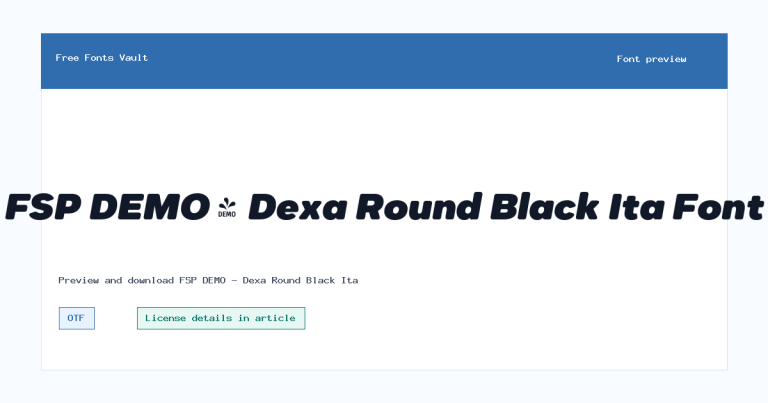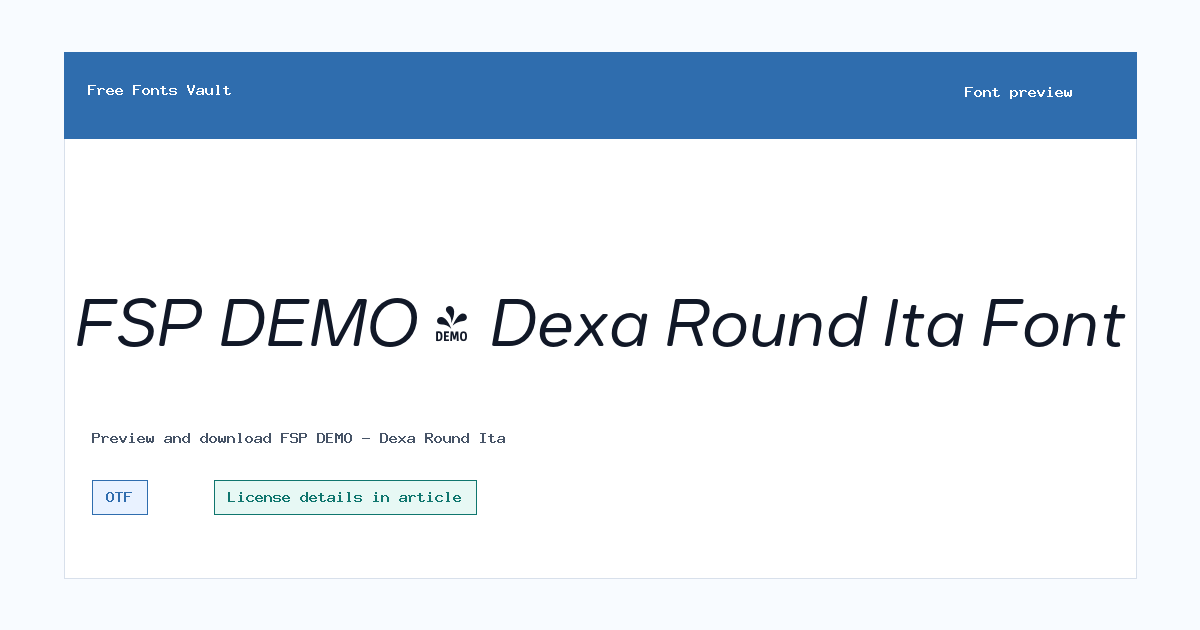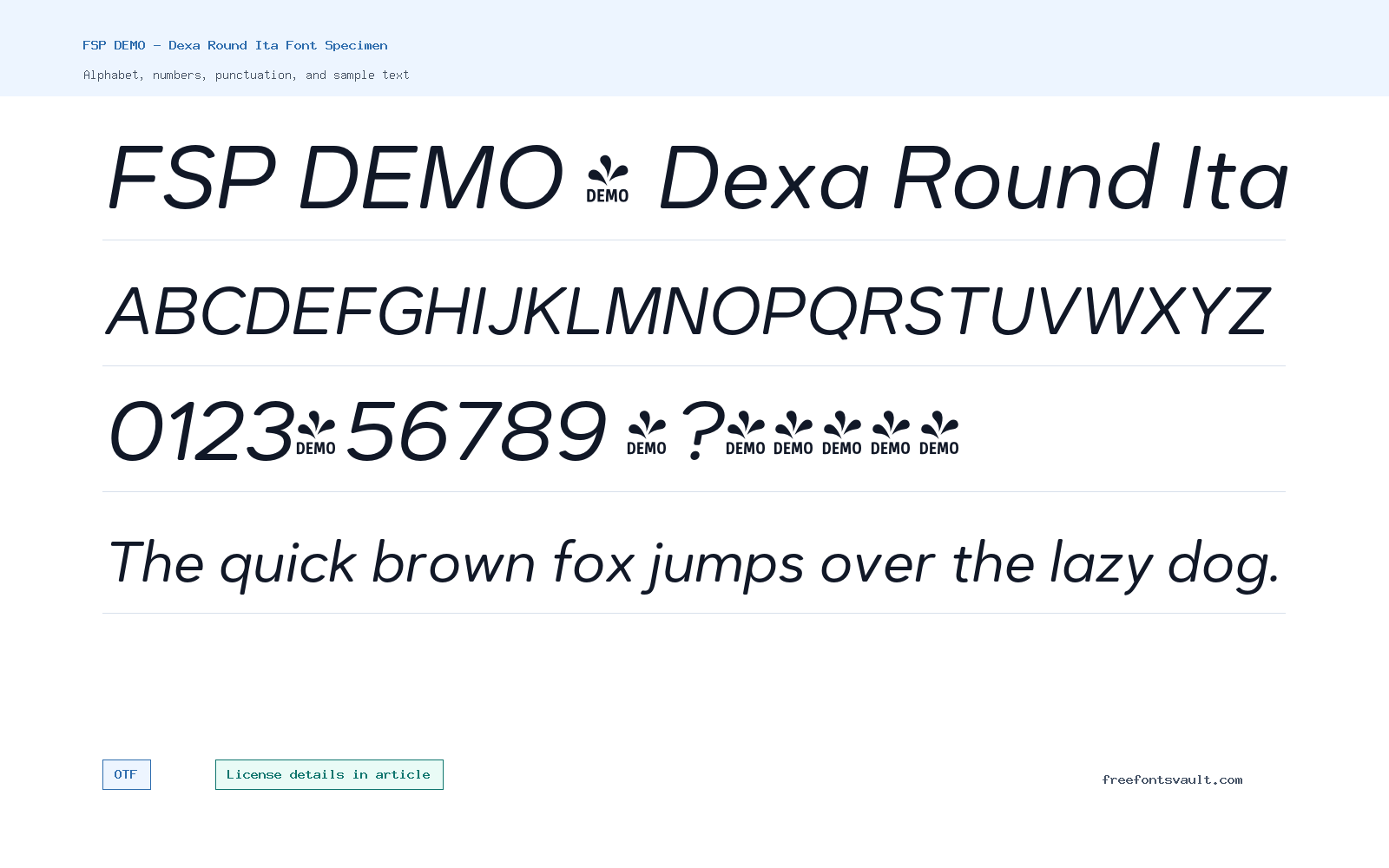
FSP DEMO - Dexa Round Ita
- Designer Ceyhun Birinci
- Foundry Artegra
FSP DEMO – Dexa Round Ita font.
Dexa Round Italic is a rounded italic font family style credited to Ceyhun Birinci and Artegra. The download includes OTF files for regular italic and bold italic weights, giving you two useful options for slanted display text.
About Dexa Round Italic
Dexa Round Italic has the soft, rounded feel suggested by its name, with an italic angle that can make short words and headings feel more active. The available files cover a 400 regular italic style and a 700 bold italic style, so you can test a lighter slanted look against a stronger headline weight in the preview tool.
Use this font where you need friendly emphasis rather than long-form reading. It can work for compact titles, badges, packaging mockups, social graphics, quotes, and short logo-style text. Because both available styles are italic, check readability carefully in smaller sizes and avoid using it for long paragraphs unless the preview still feels comfortable.
For the cleanest comparison, type the same phrase in the regular italic and bold italic styles. The regular style can handle softer emphasis, while the bold style is better when the words must stand out at thumbnail size. Watch curved letters and tight letter pairs, since rounded italic shapes can need a little extra breathing room.
- Two italic weights: 400 regular italic and 700 bold italic
- Rounded italic character for friendly emphasis
- Short headlines, quote graphics, badges, and display text
- Friendly branding mockups, packaging concepts, and social media visuals
Dexa Round Italic is credited to designer Ceyhun Birinci and the Artegra foundry, with Artegra Type listed as the related designer website.
What styles are included with Dexa Round Italic?
What is Dexa Round Italic best used for?
It is best for short display text such as headings, badges, quotes, packaging mockups, and social graphics where a rounded italic style fits the design.
Can I use Dexa Round Italic for body text?
It is better suited to short text. Since the available styles are italic, long paragraphs may become tiring to read, especially at smaller sizes.